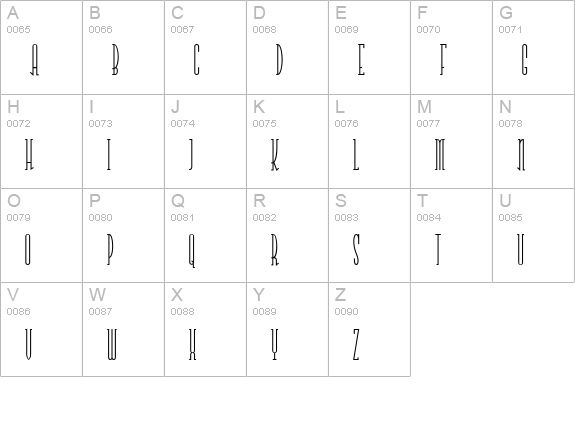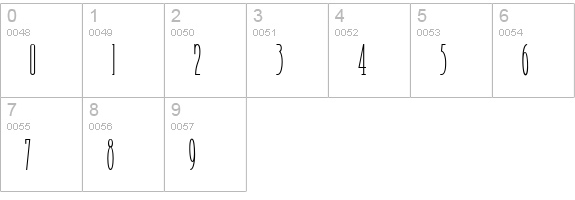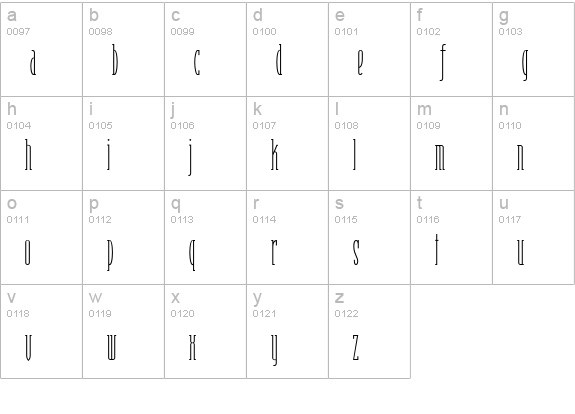
Risky Business Square NF ExtraLight Font Details
Risky Business Square NF ExtraLight is an airy, ultra-refined variant in the Risky typeface family \xE2\x80\x94 well suited to minimalist headlines and refined display use.
Risky Business Square NF ExtraLight font is a sleek and modern typeface that exudes sophistication and elegance. Its thin and delicate strokes give it a unique and contemporary look that is perfect for a wide range of design projects. Whether you're creating a minimalist logo, a stylish invitation, or a chic branding design, this font will elevate your work to new heights. What sets Risky Business Square NF ExtraLight font apart is its versatility and adaptability. It can effortlessly transition from a bold headline to a subtle accent text, making it a valuable addition to any designer's toolkit. The clean lines and sharp angles of this font add a touch of refinement and professionalism to any project. Best of all, Risky Business Square NF ExtraLight font is available for free download at FontsMarket.com. This means that you can easily access this premium quality font without breaking the bank. Don't miss out on the opportunity to enhance your designs with this exquisite typeface. Download Risky Business Square NF ExtraLight font today and take your creative projects to the next level!